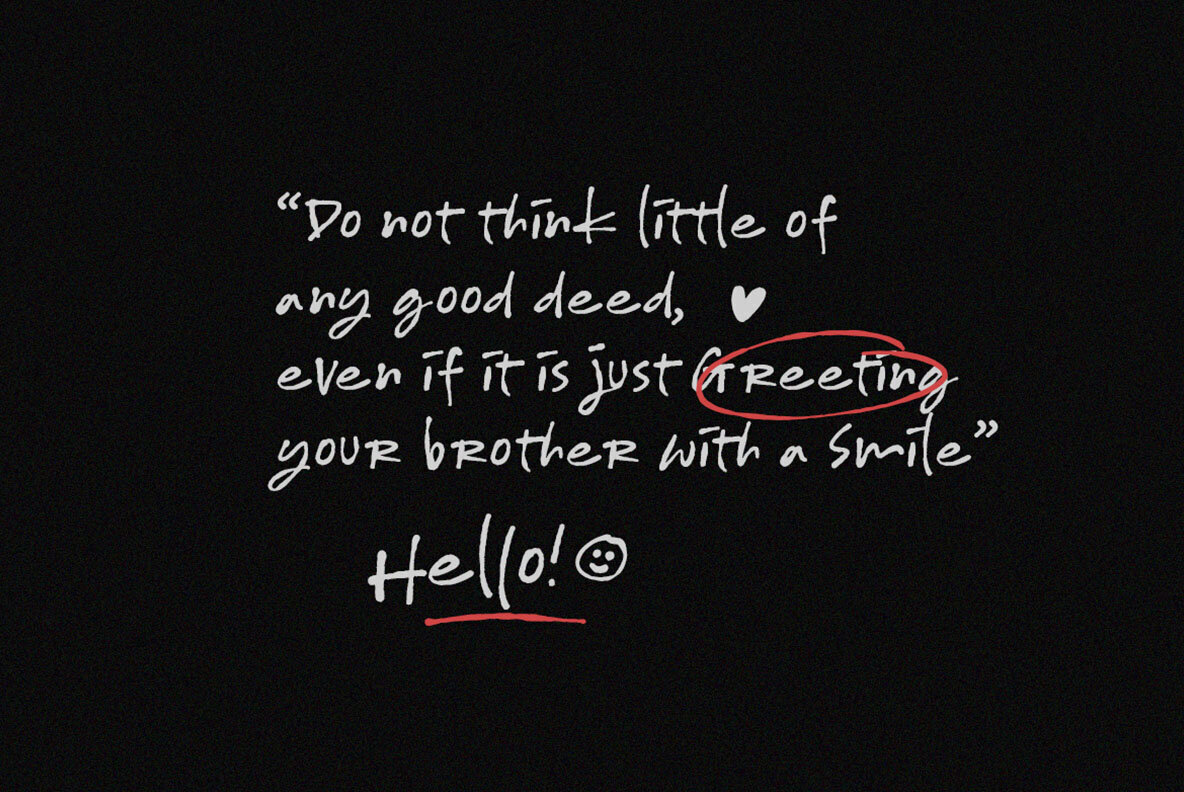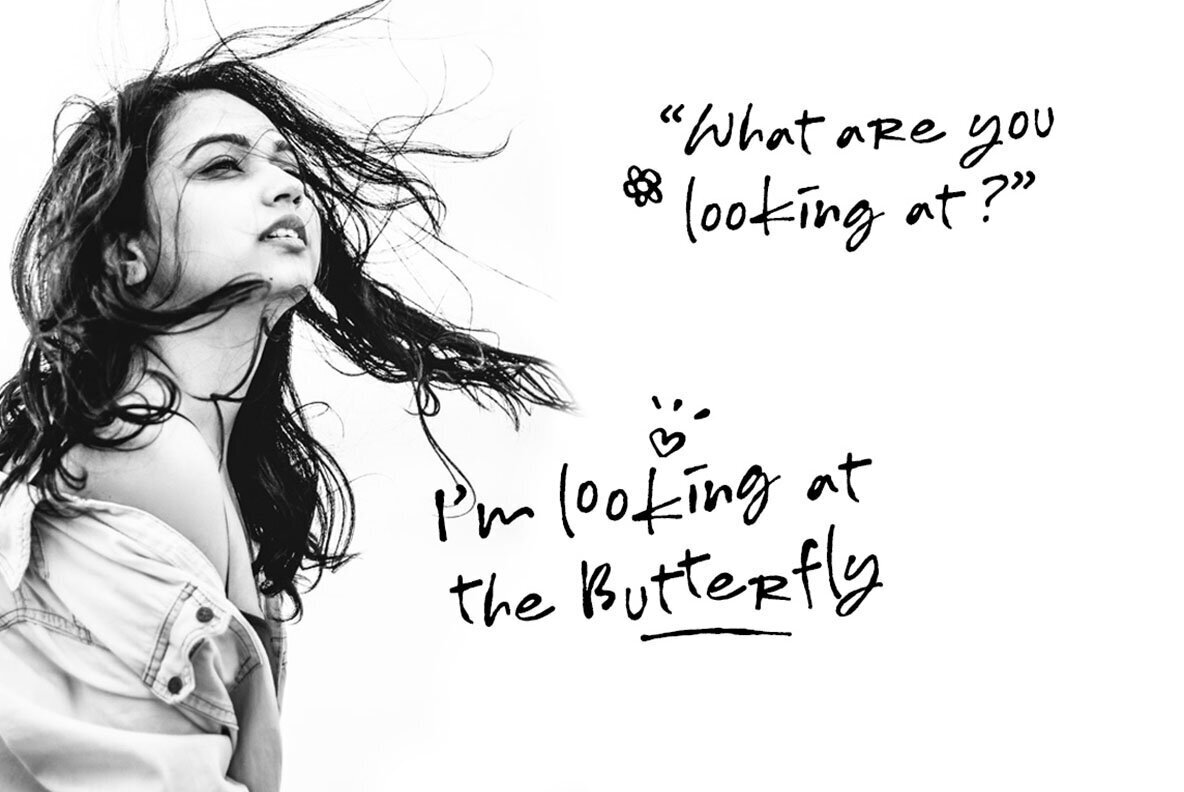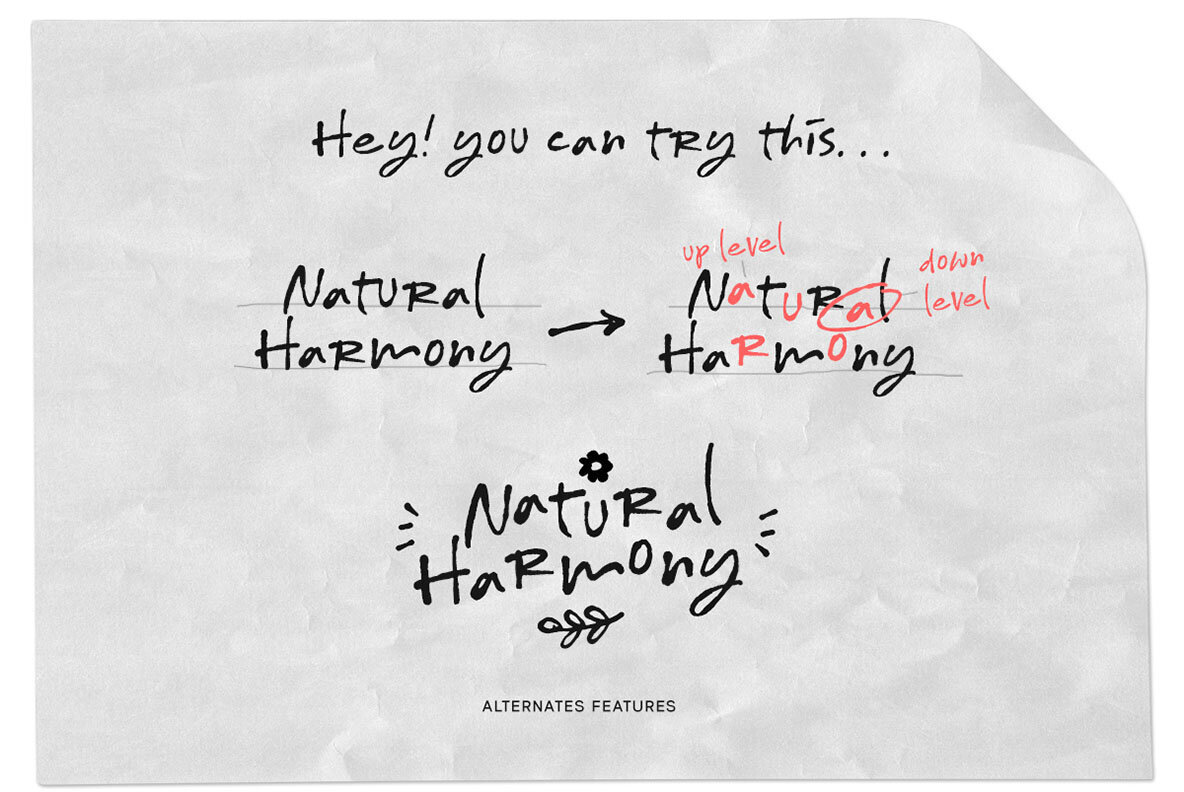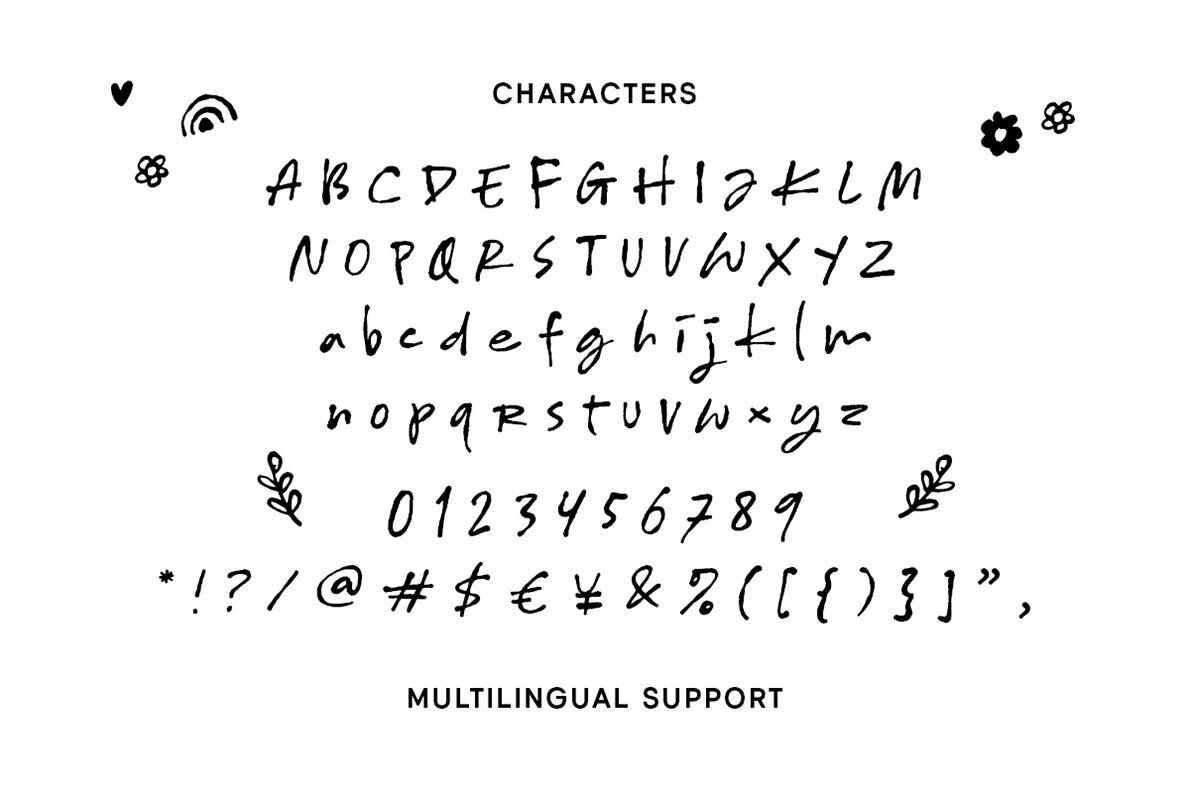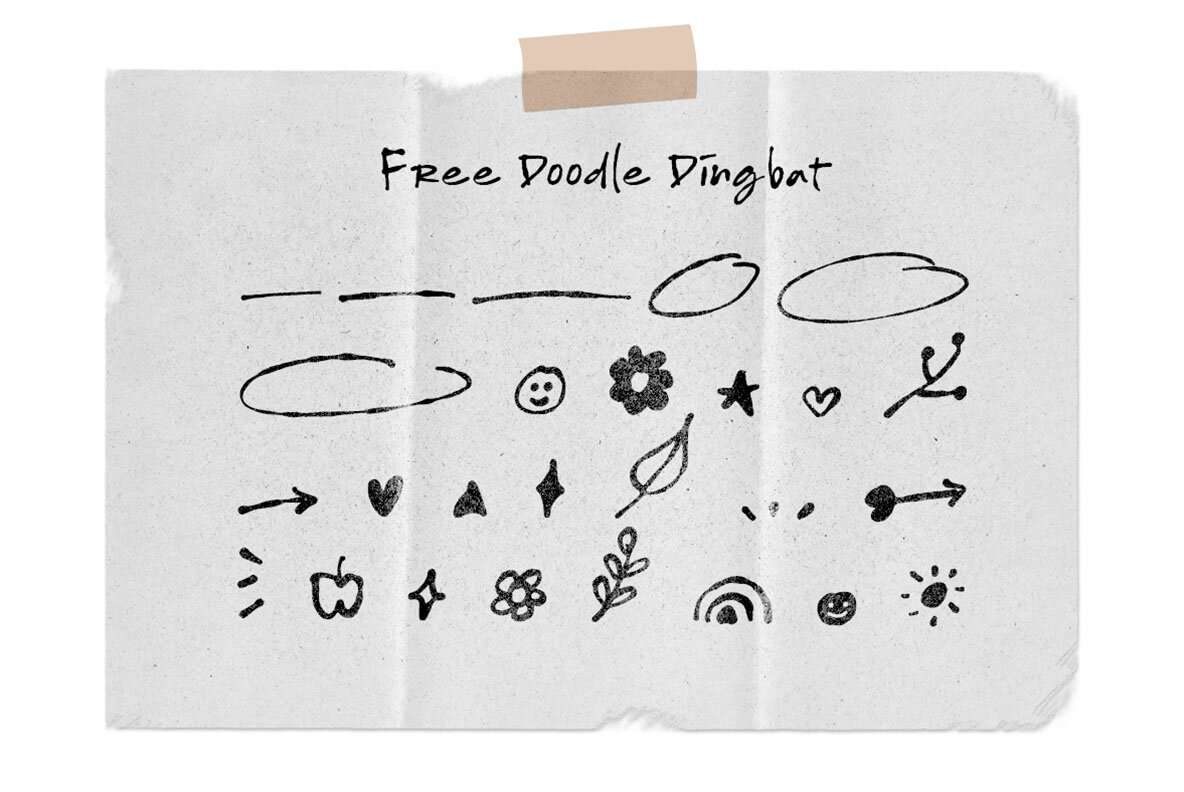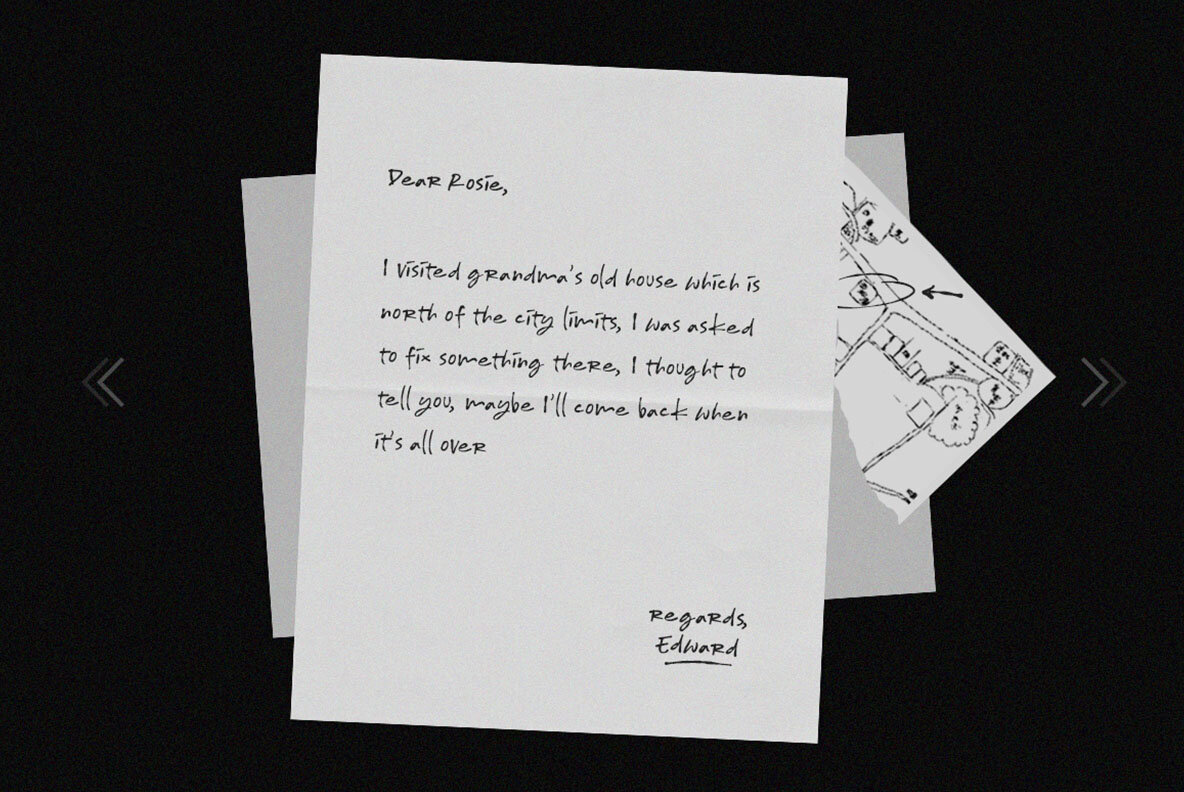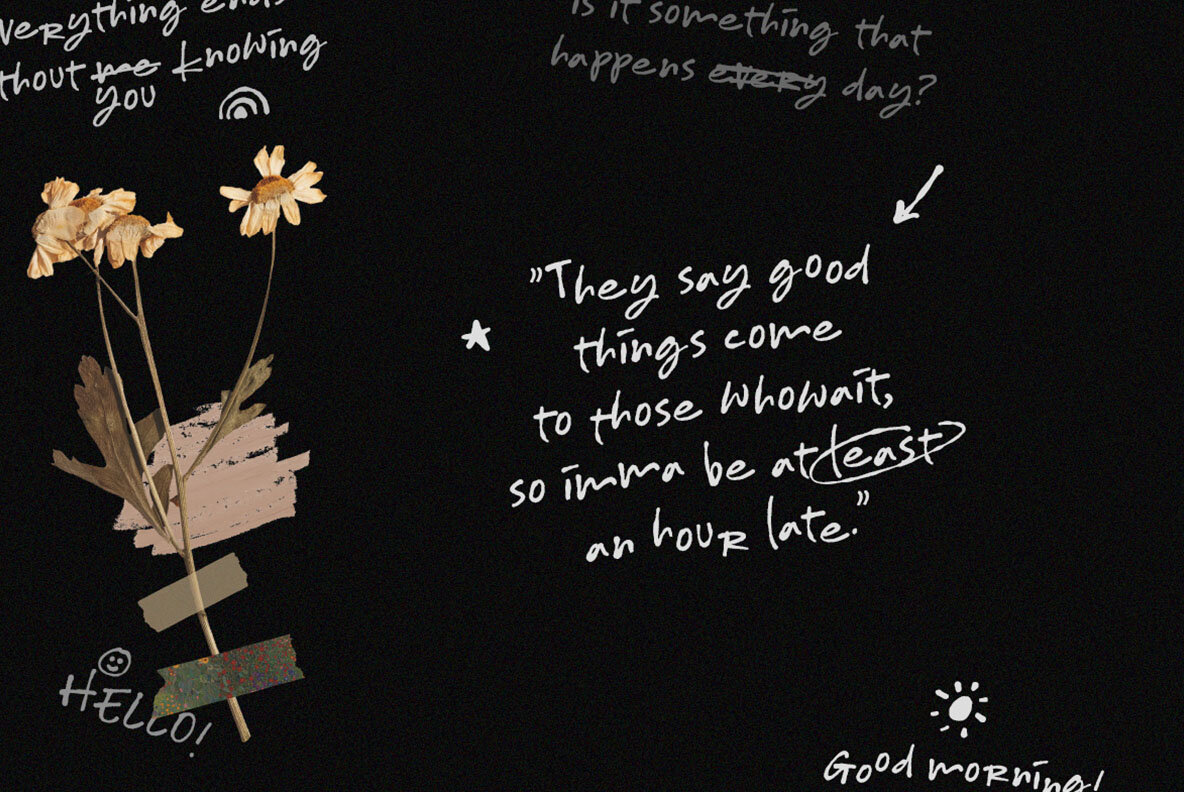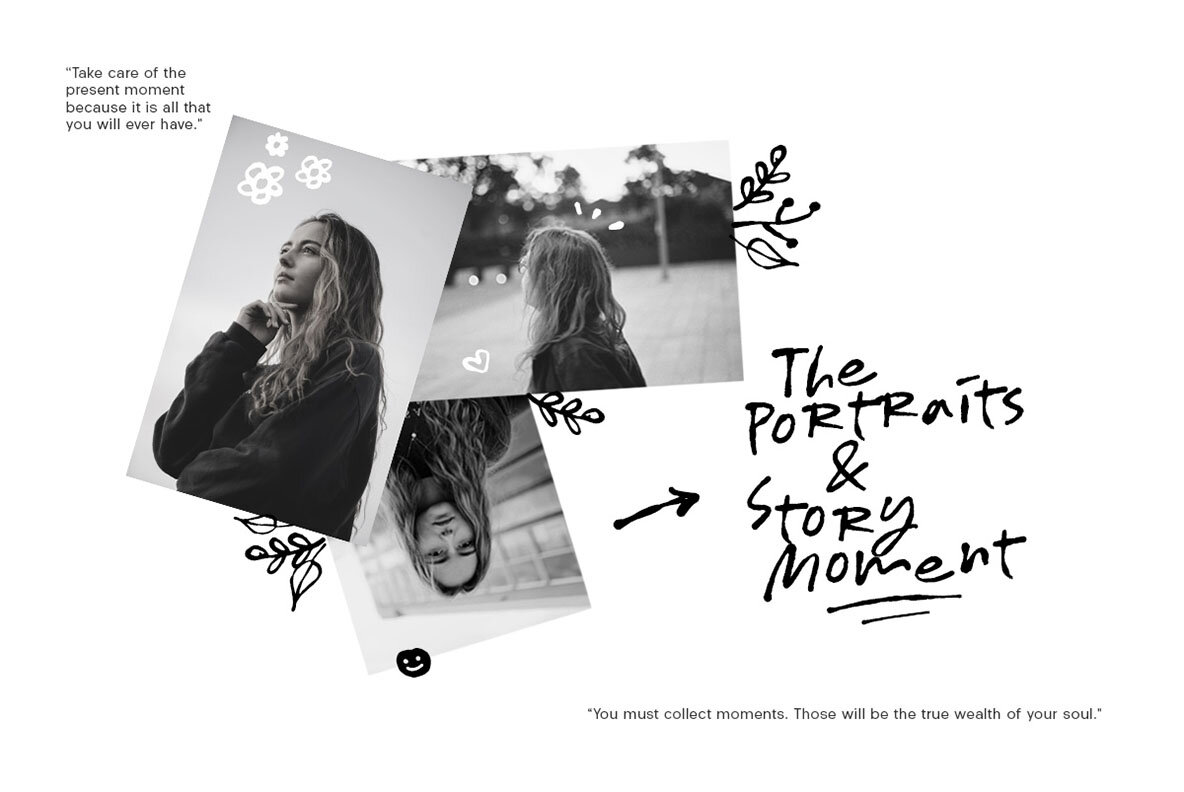
Bitter Sour Font
Bitter Sour by Letterhend Studio is a lively typeface that captivates with its whimsical and playful aesthetic. Ideal for projects that require a standout font, Bitter Sour is exceptionally suited for children's storybooks, playful themes, and fun-packed designs. Its versatility extends to formal creations as well, making it an excellent choice for invitations, labels, logos, and advertising materials.Bitter Sour: Playful Typeface With Doodle Charm